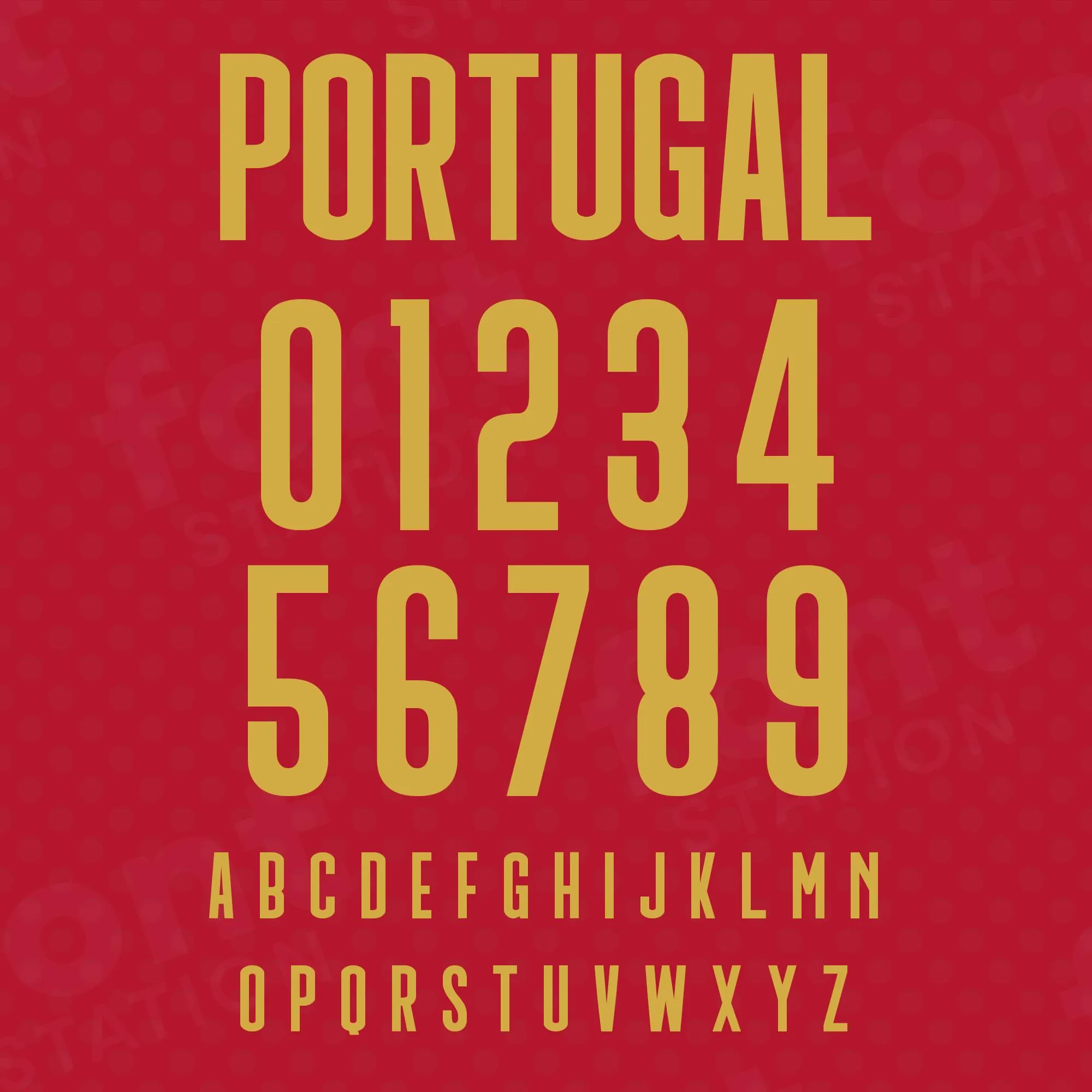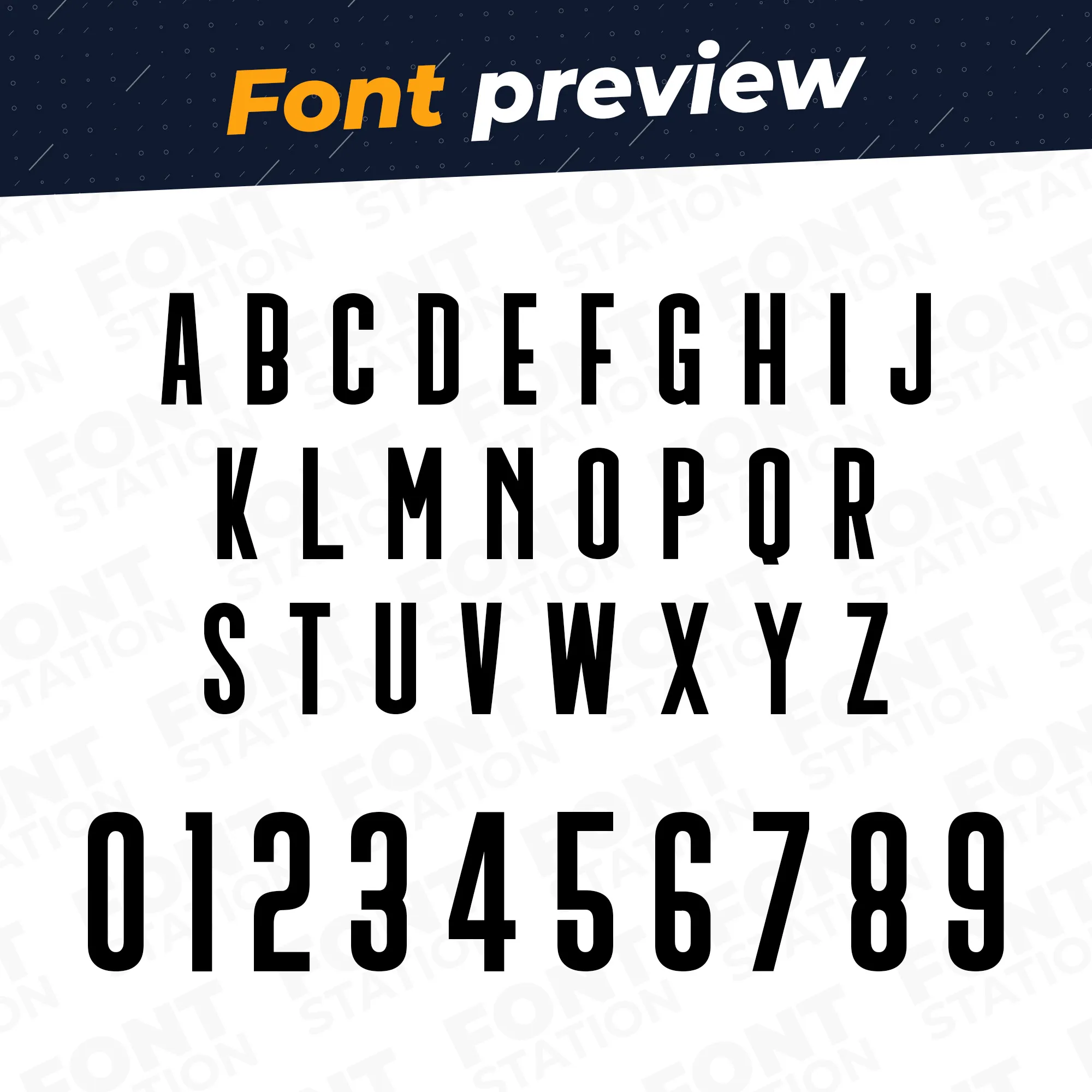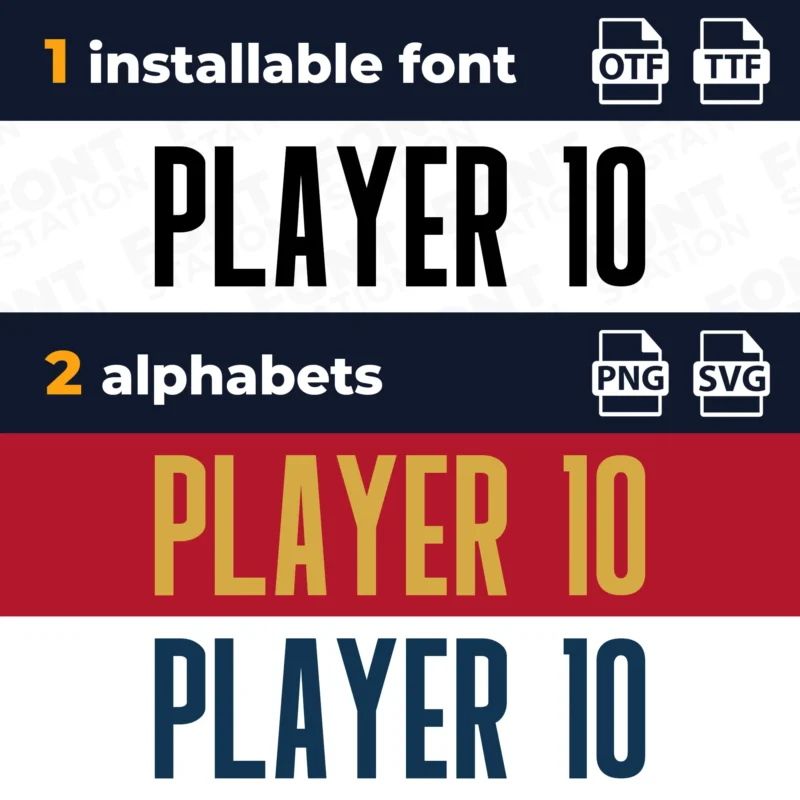
Our Portugal Football typeface, inspired from the official Portugal Soccer font from the World Cup 2022
Grab your computer, tablet or other device and start creating right now with our Portugal Jersey font letters! Our Portugal Football World Cup typography is inspired from Portugal Jersey Soccer font, making it ideal for your custom Football Shirt / Soccer Jersey